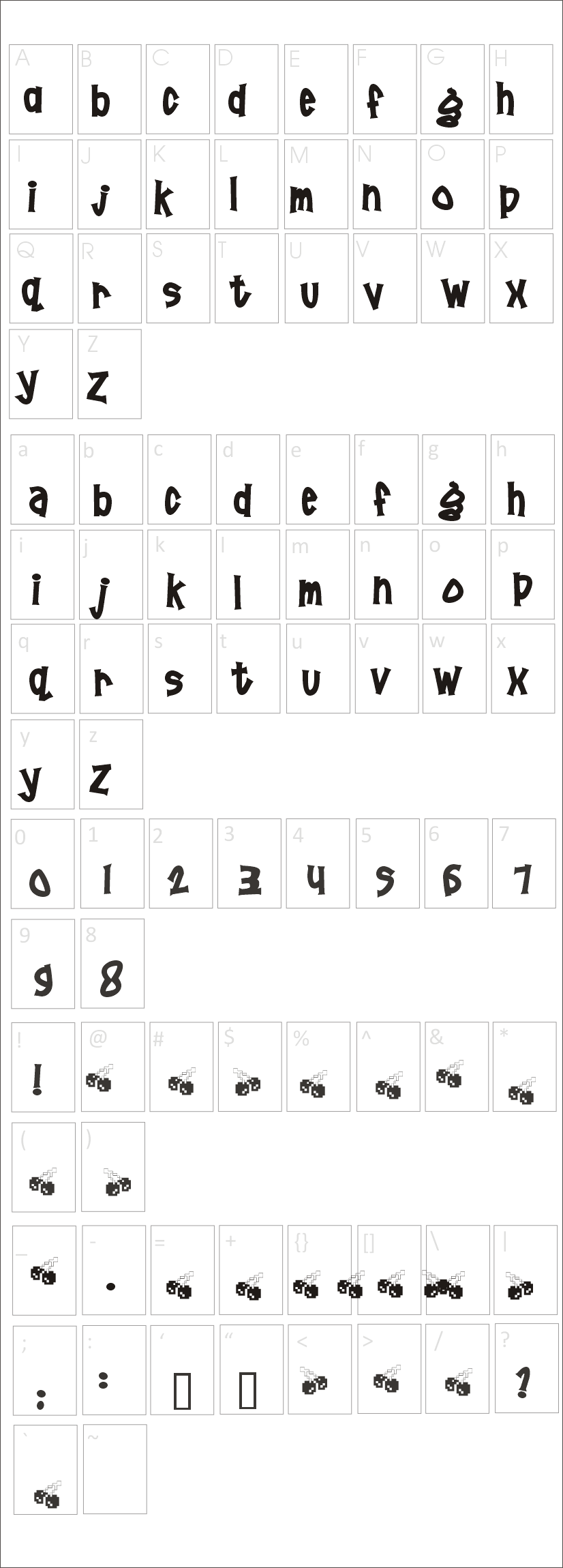
| Font Name: | Pornhut |
| Font Designer: | Fontalicious |
The Pornhut font, created by Fontalicious, is a unique typeface that adds a bold and playful touch to any design project. Inspired by retro styles, it features thick, rounded letters that make your text stand out. This font brings a fun and cheerful vibe, making it perfect for creative projects like branding, social media posts, posters, and merchandise.
Key Features of Pornhut Font:
- Design Origin: Crafted by Fontalicious, known for its creative and fun fonts.
- Style: Retro-inspired with thick, rounded letters that give a lively and enjoyable feel.
- Uses: Great for projects needing a bold and playful look, such as branding, social media graphics, posters, and merchandise.
Ideal Usage:
This Font is ideal for projects that require a bold, playful, and distinctive typeface:
- Branding: Perfect for brands that want to convey a sense of fun, creativity, and boldness. It works especially well for entertainment, fashion, and lifestyle brands.
- Posters and Signage: Its thick, rounded forms make it highly visible and impactful, ideal for poster designs, event flyers, and large-scale signage.
- Social Media and Content Creation: Stand out in the digital space with Pornhut’s unique style, making it a great choice for memes, social media posts, and online advertising.
- Merchandise and Apparel: The font’s quirky and engaging look makes it an excellent choice for t-shirts, mugs, stickers, and other merchandise items.